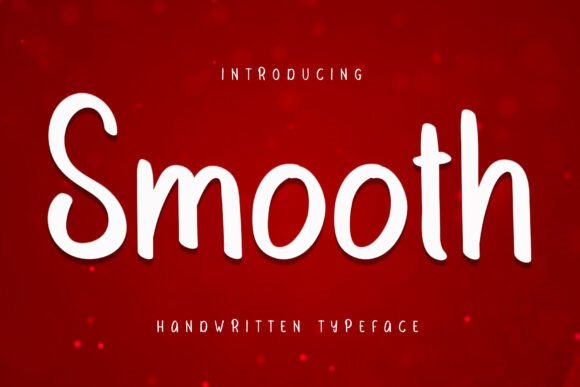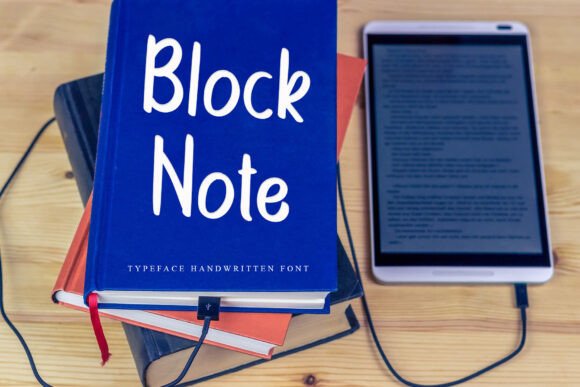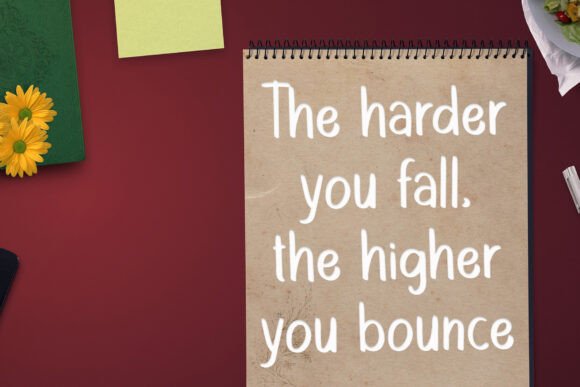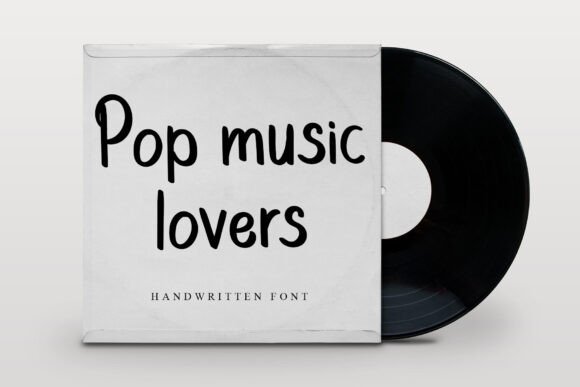
Smooth Font: Elegant Handwritten Script for Branding & Invitations
About the Smooth Font
From logos to headlines, the Smooth Font is the perfect choice for making a lasting impression. Smooth is a unique and elegant font, perfect for use on invitation cards, greeting cards, party events, billboards, logos, business cards and any other design that requires a handwritten touch. This font features varied baselines, fine lines, beautiful glyphs and makes your ideas look exquisite and complementary to your work. This font is PUA encoded which means you can access all glyphs and swashes with ease!
Smooth Font Usage Examples